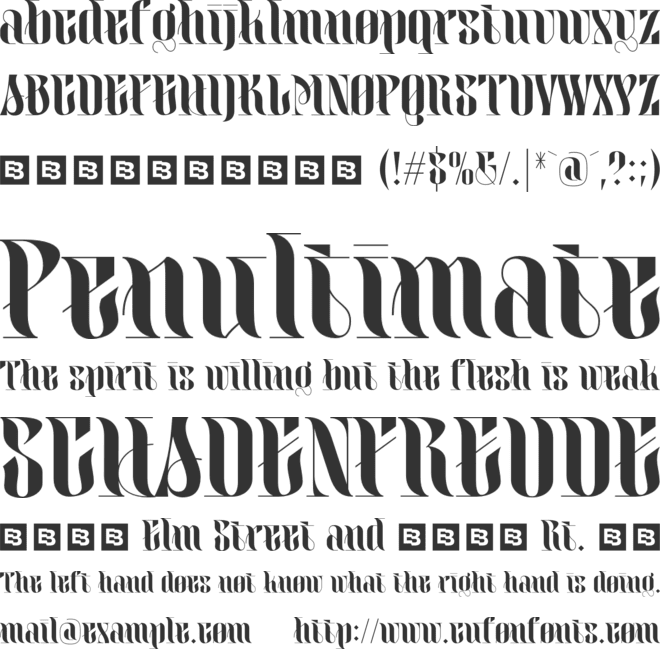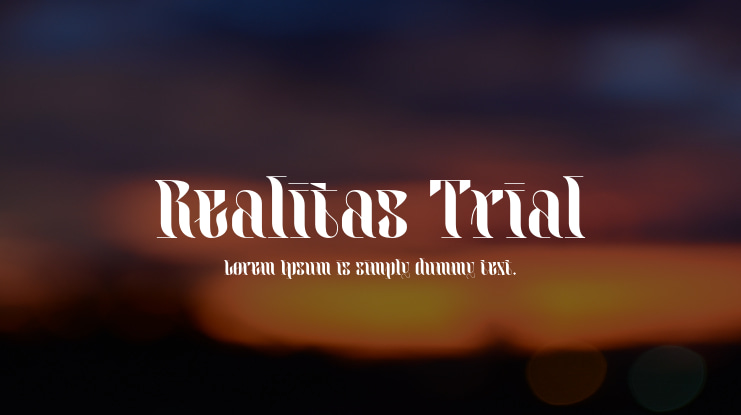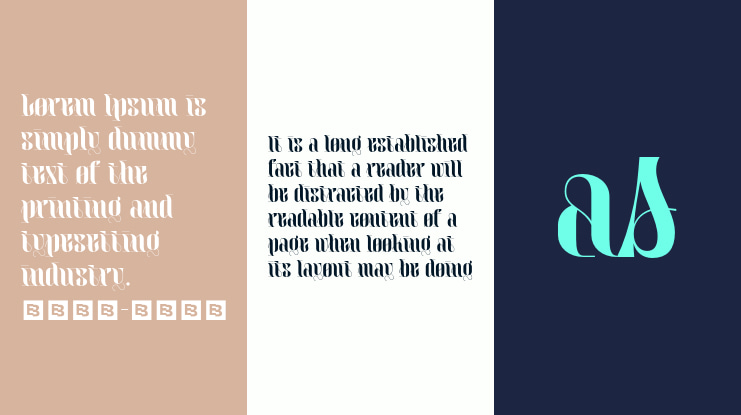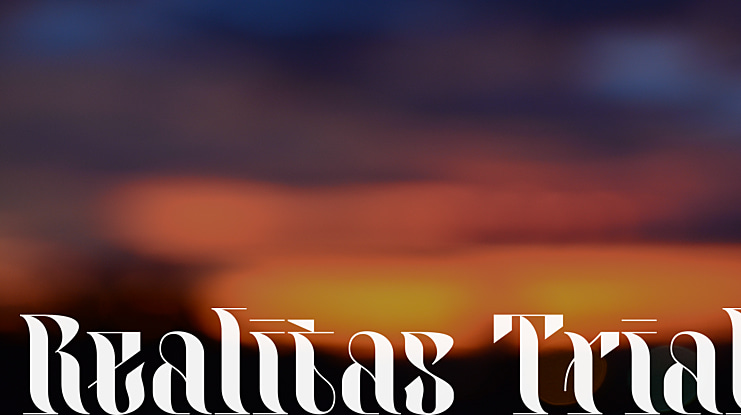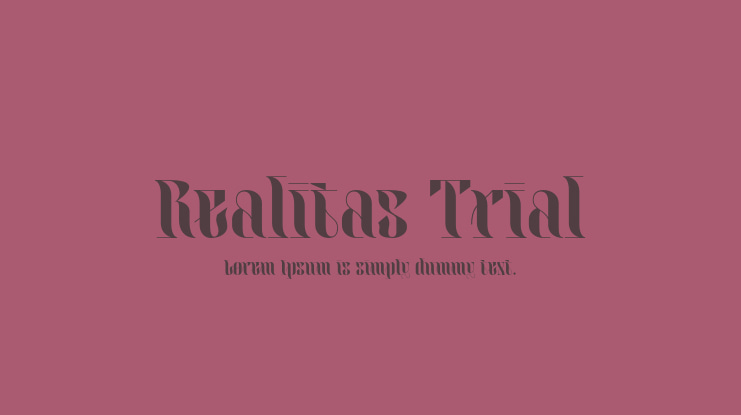
Realitas Trial Font
It’s a modern display typeface with a unique and classy style. It has a modern and vintage look. This display font was designed and published by Eko Bimantara in August 2022. This typeface deeply explores letterforms beyond common boundaries and creates new possibilities in letter structure. It has more than 300 glyphs which covered broad latin languages.